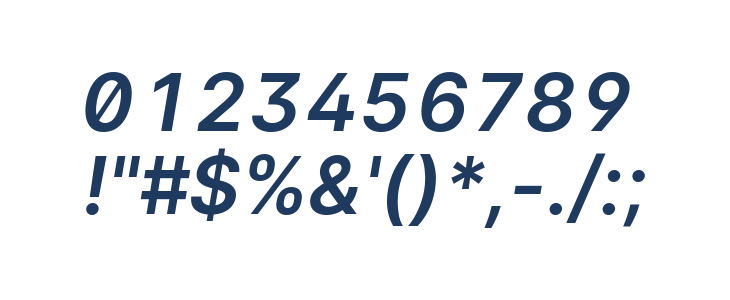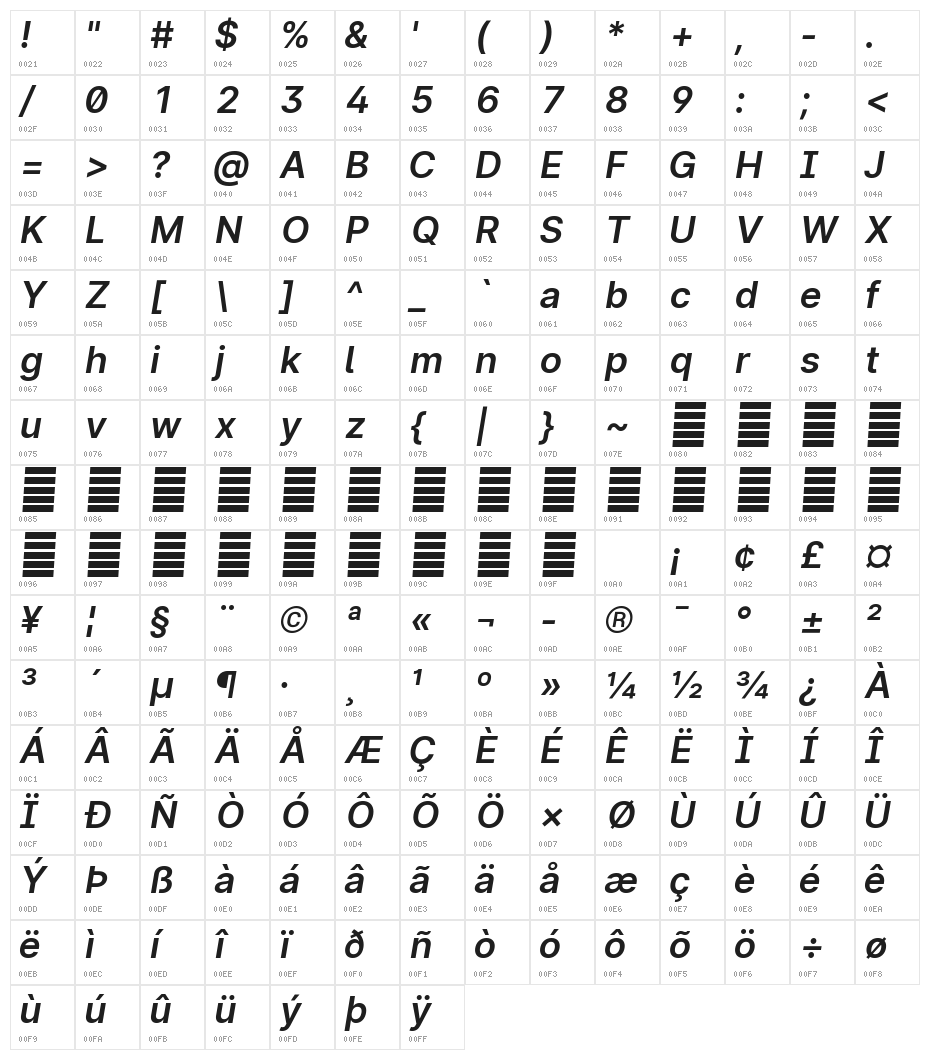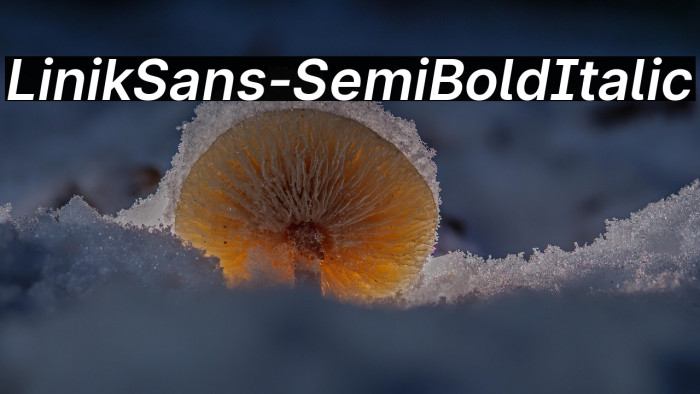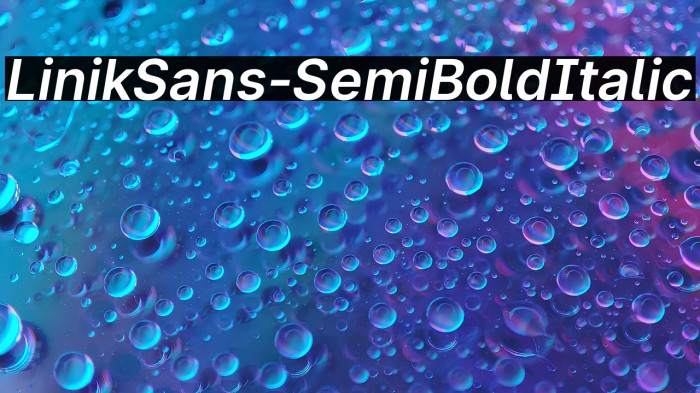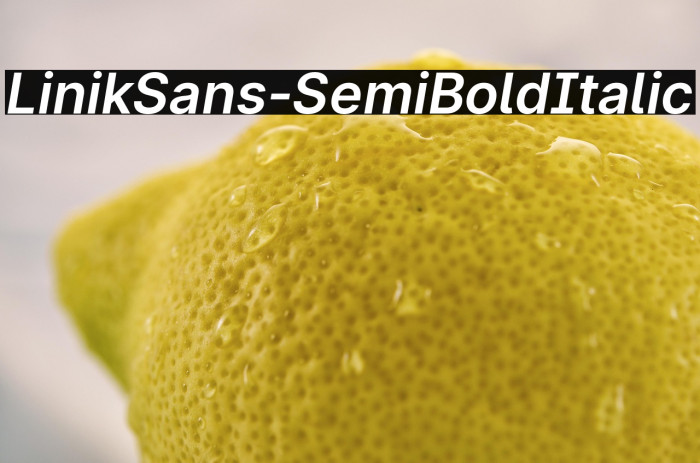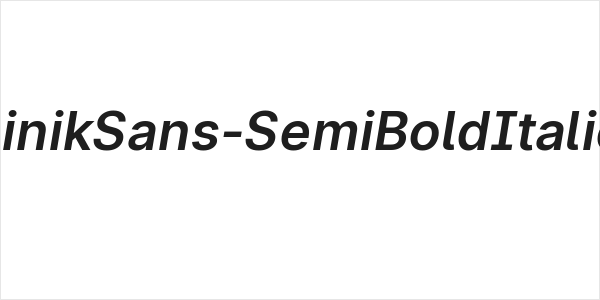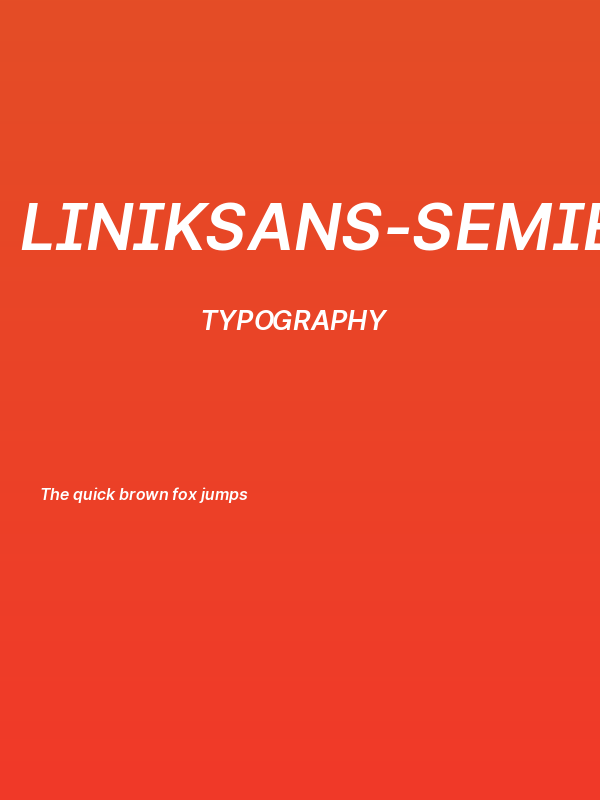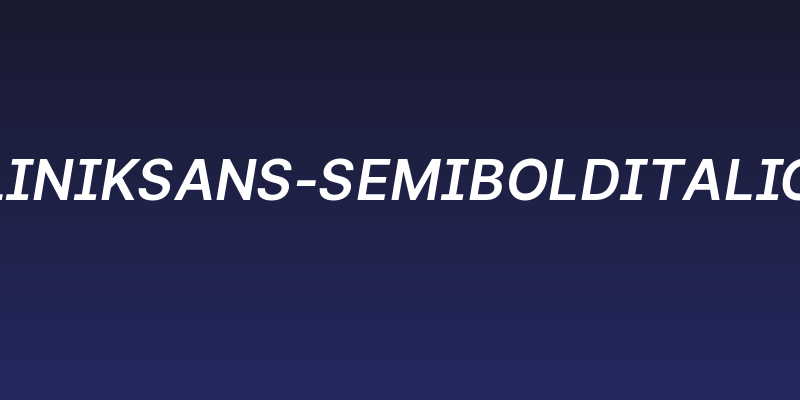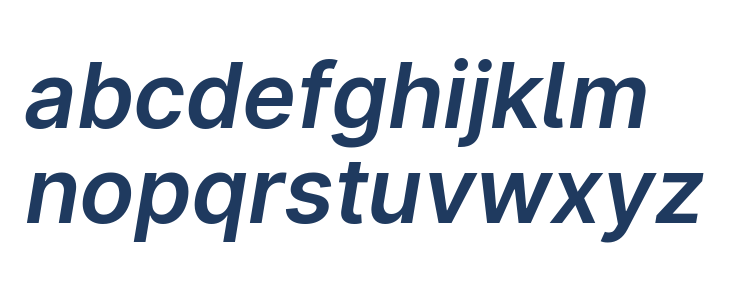
LinikSans-SemiBoldItalic Font
LinikSans-SemiBoldItalic Description
This font features a clean and modern sans-serif design with a semi-bold weight, offering a strong yet approachable appearance. The italic style adds a dynamic and forward-leaning character, making it suitable for contemporary applications. The strokes are consistent, with medium contrast, providing clarity and readability. The character spacing is normal, ensuring a balanced and harmonious text flow. This font's versatility makes it ideal for a wide range of design projects, from digital interfaces to print media.